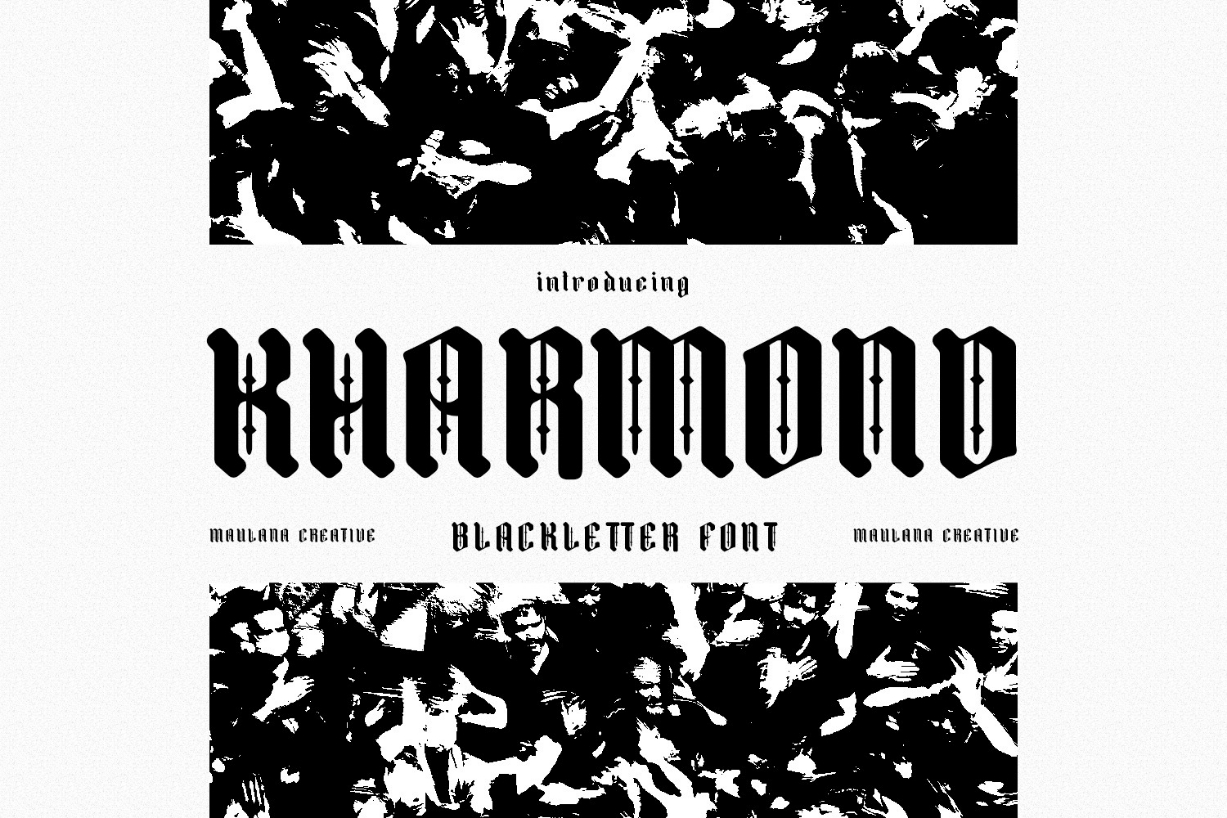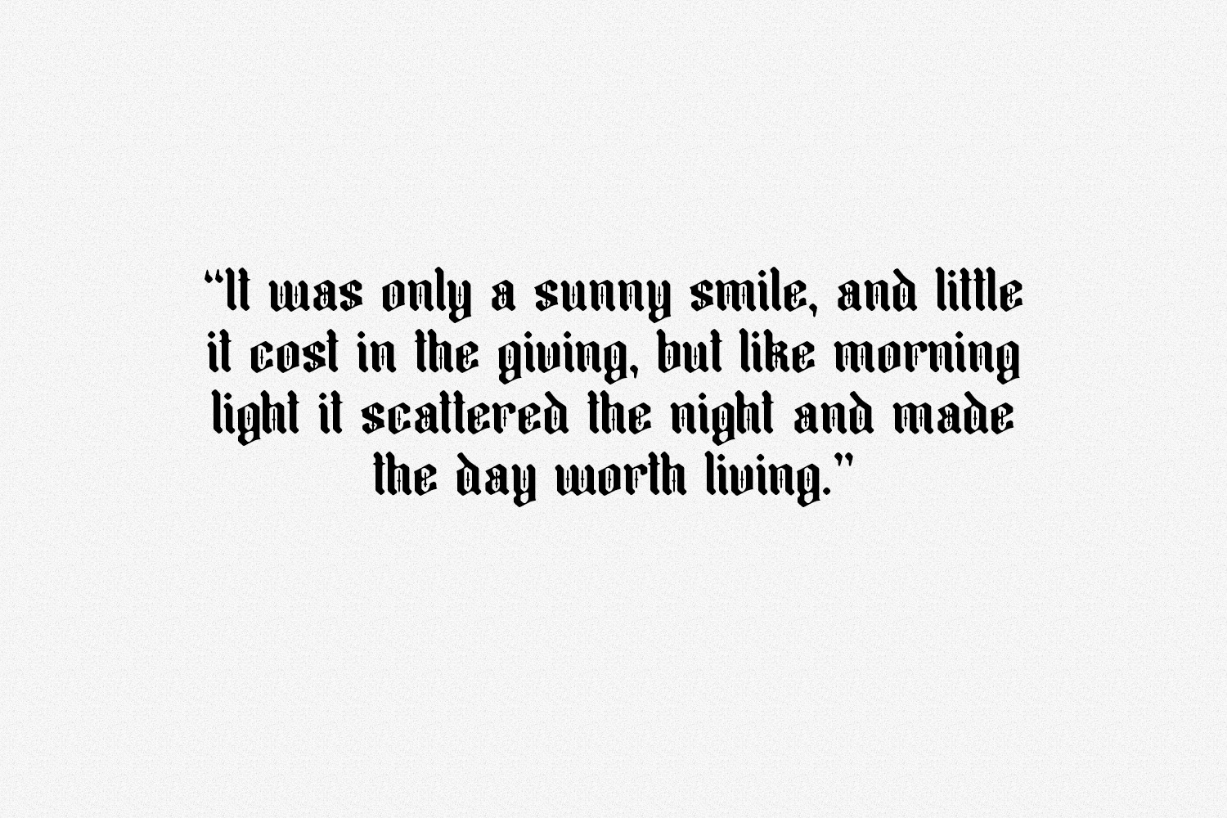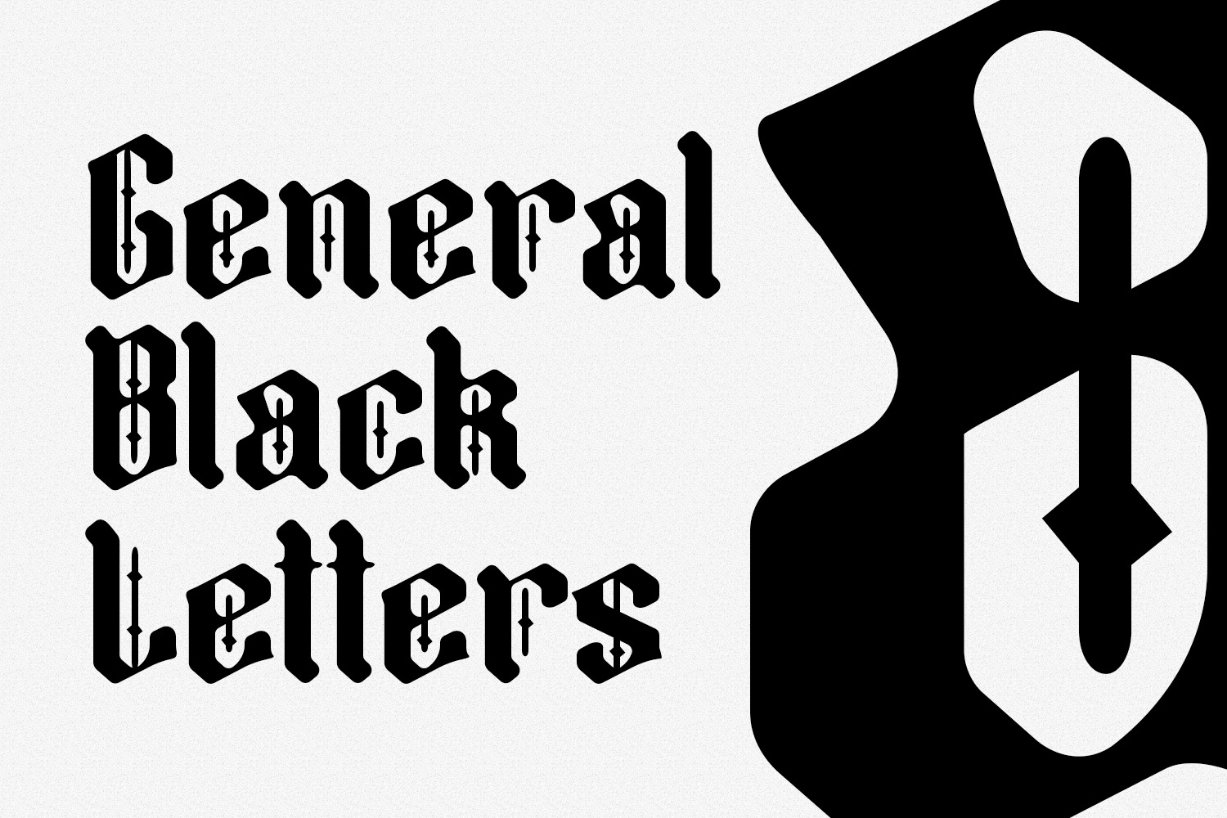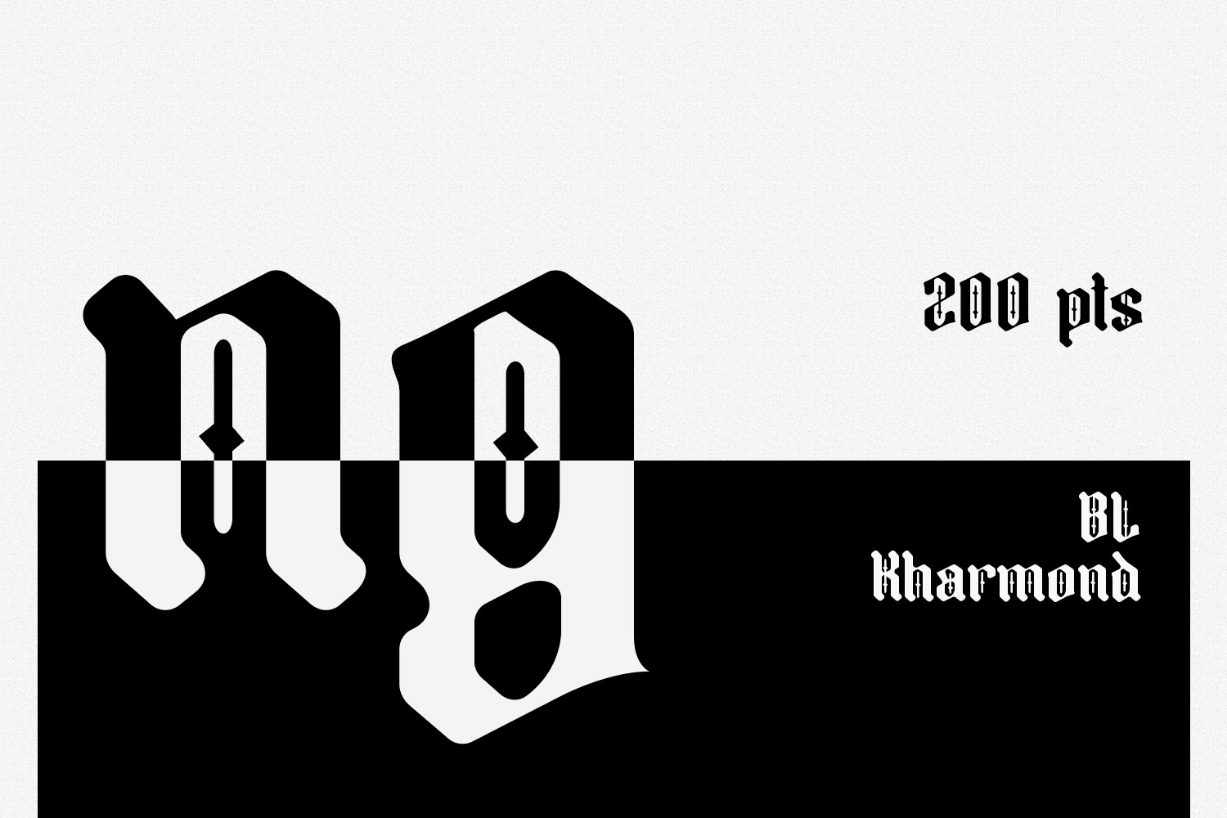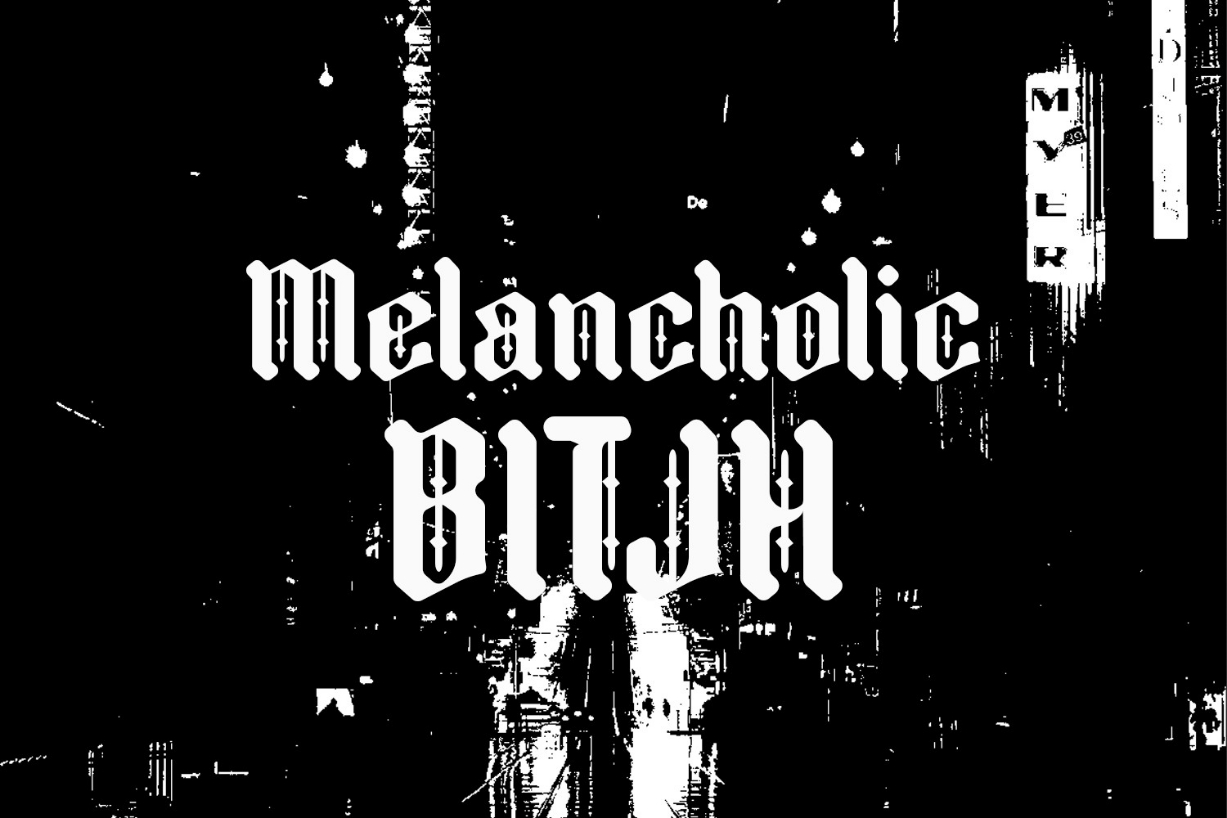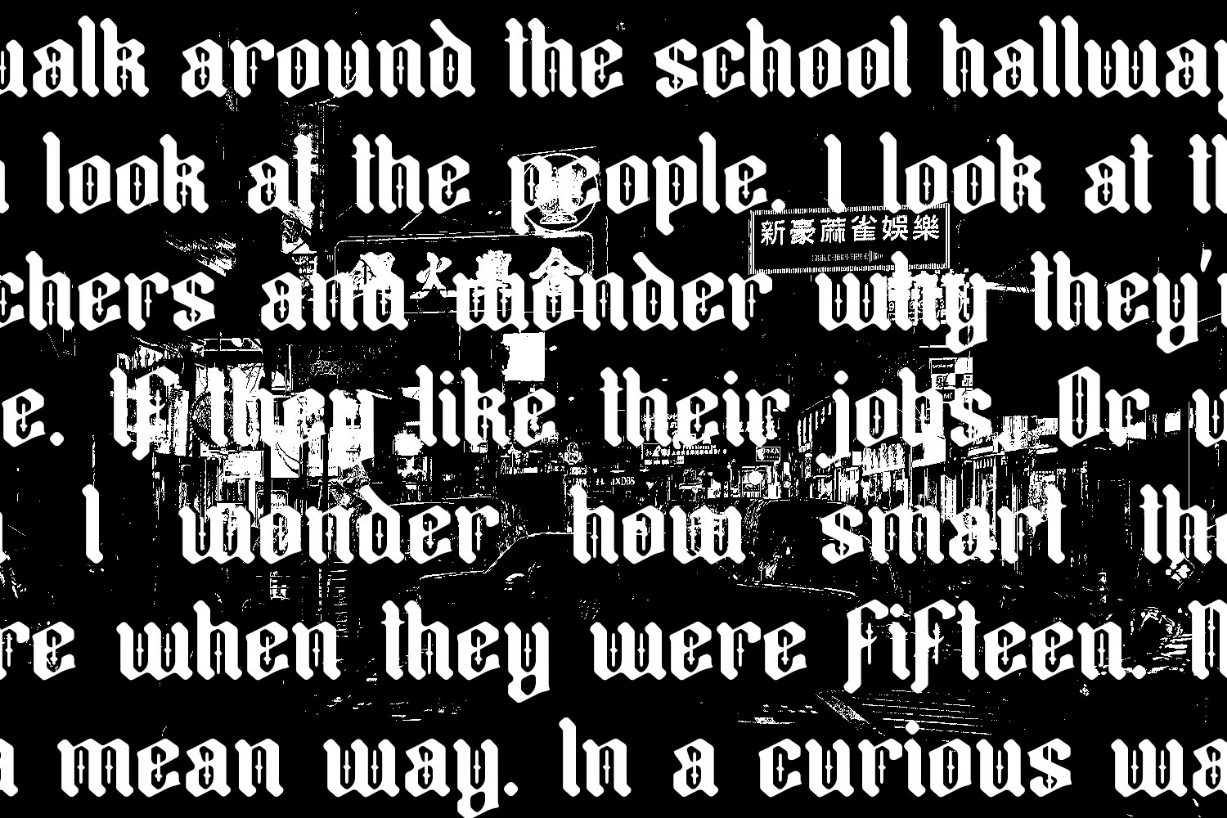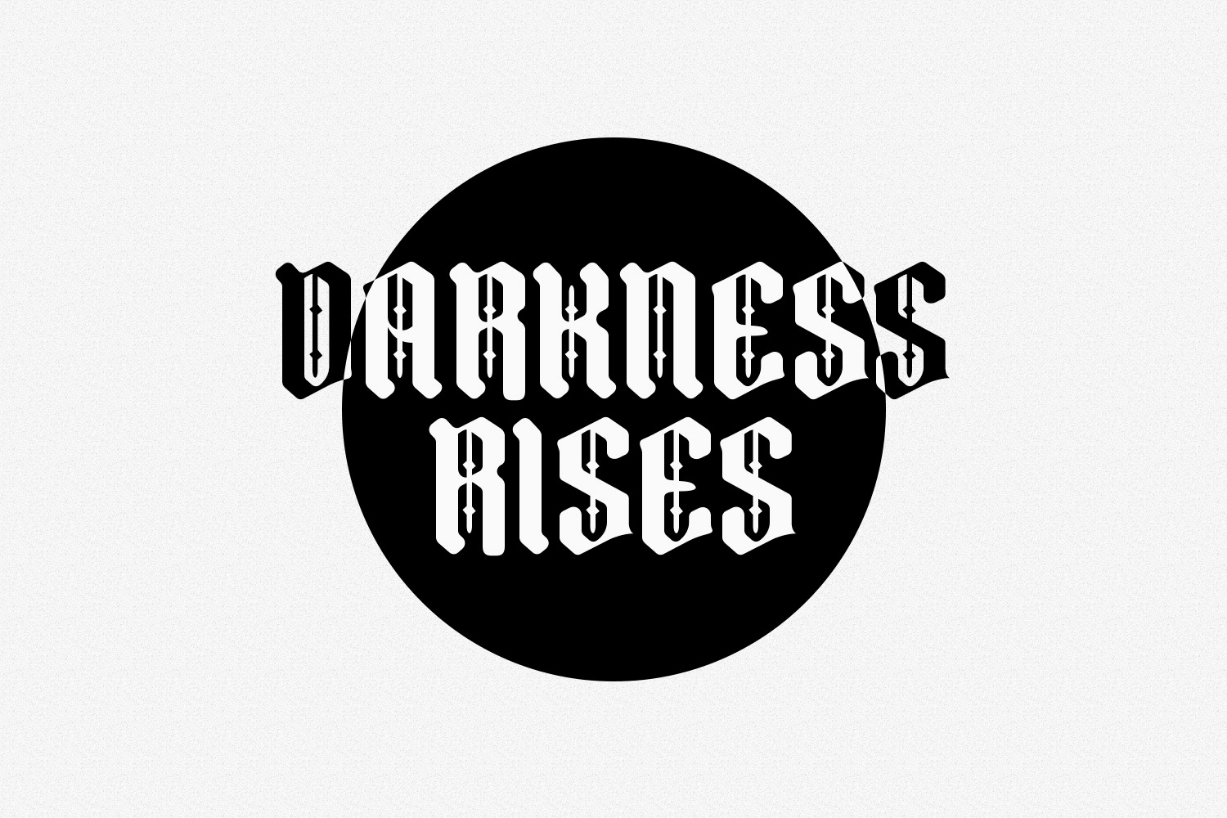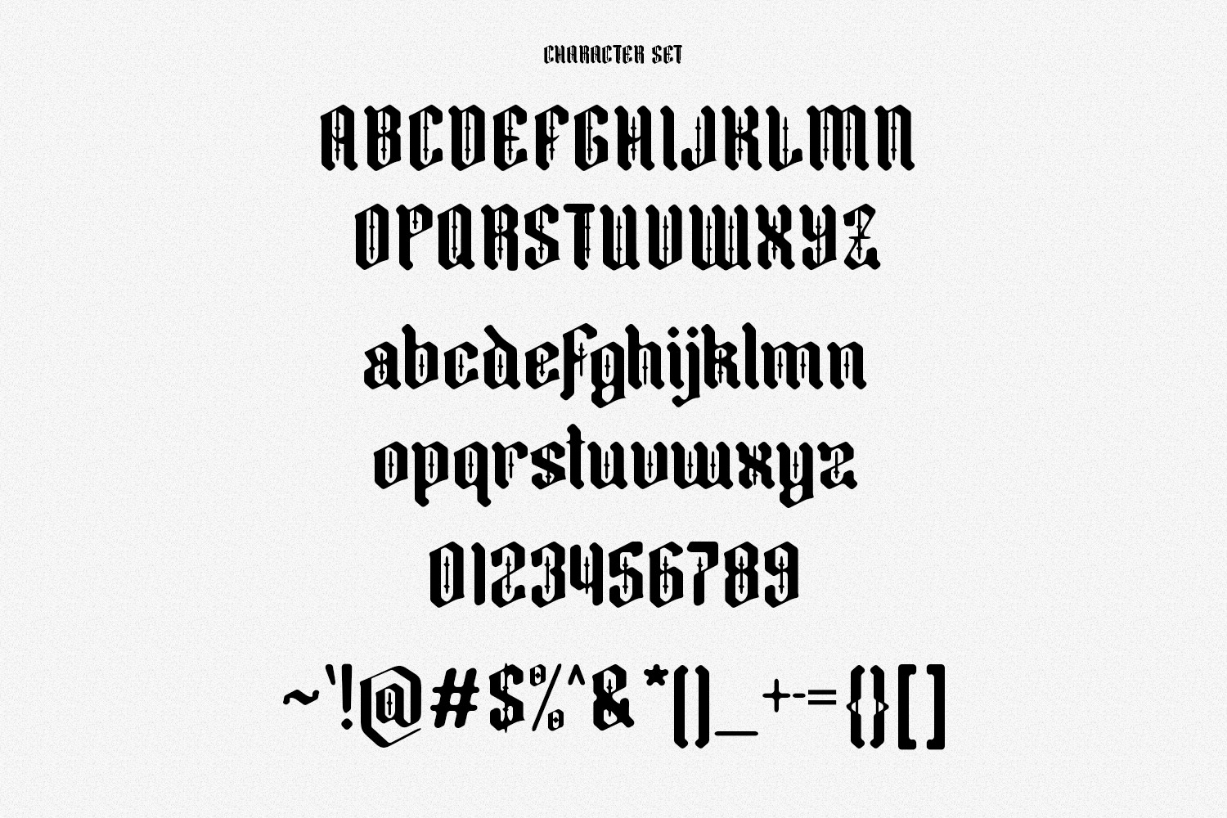
Kharmond Font
About Kharmond Font
Kharmond is a fancy and stylish blackletter display font. Masterfully designed to become a true favorite, this font has the potential to bring each of your creative ideas to the highest level!